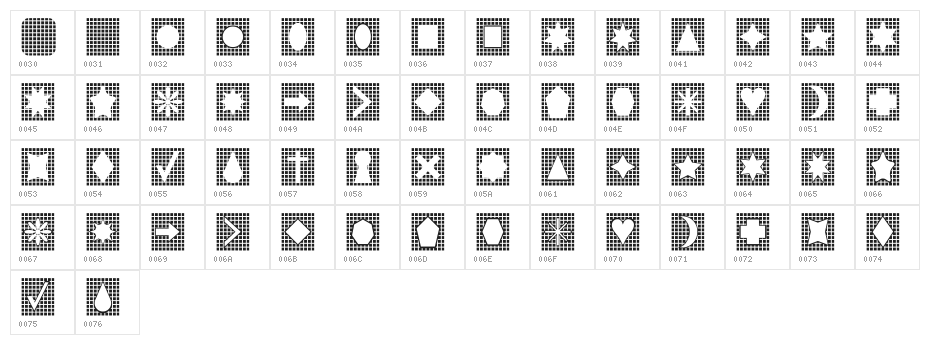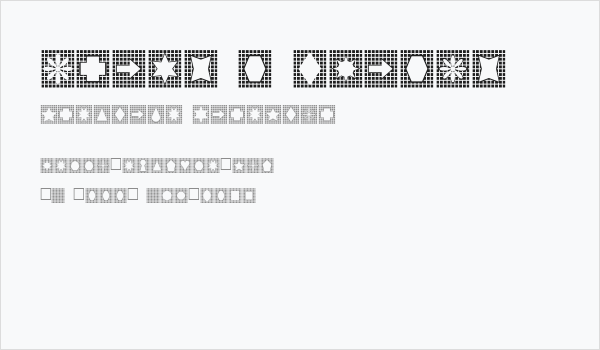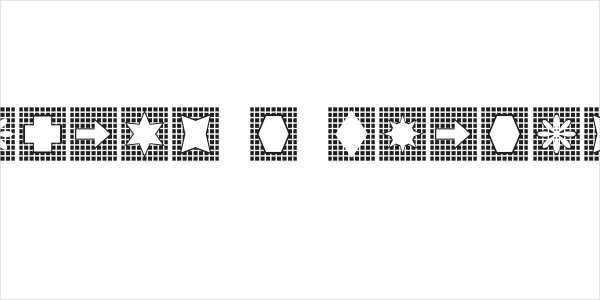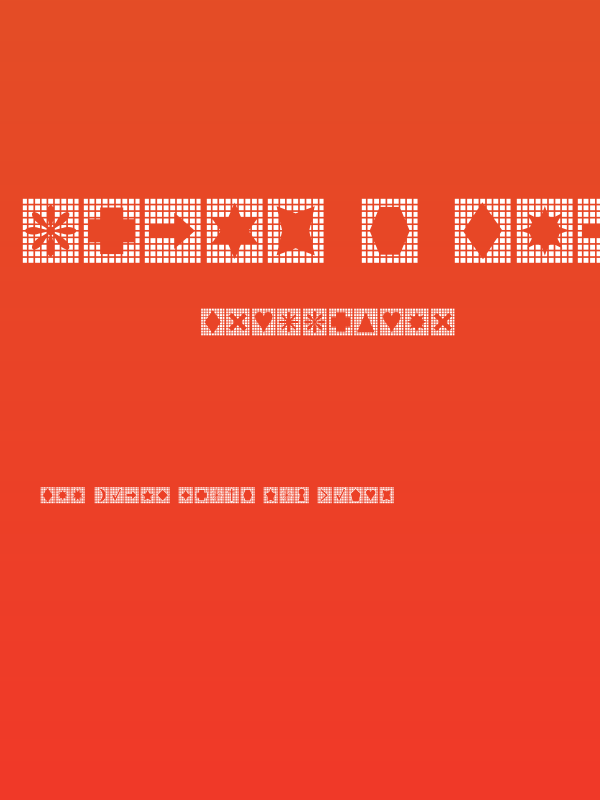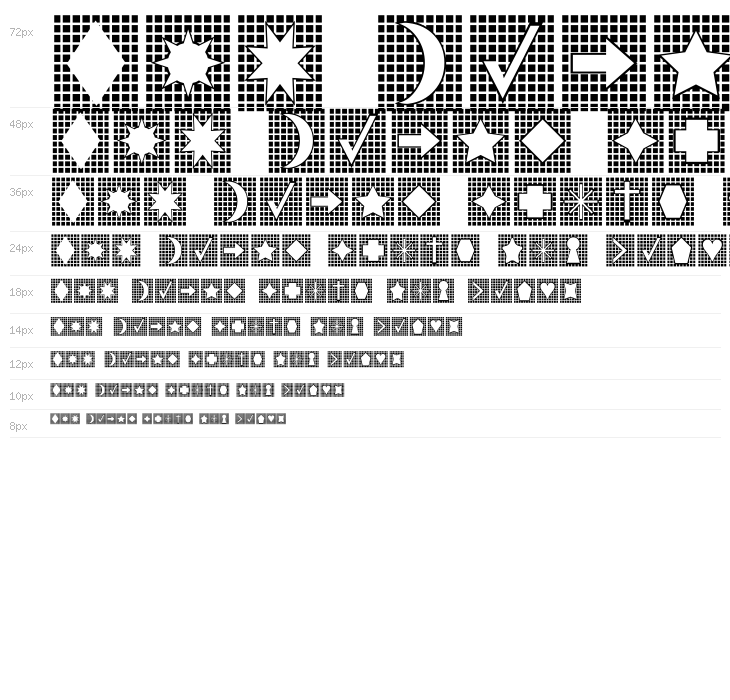
Grids n Things Font
Grids n Things Description
A decorative dingbat font featuring various geometric and symbolic shapes, each enclosed within a uniform grid pattern. The glyphs include stars, arrows, hearts, circles, polygons, and other icons, all rendered in a bold, high-contrast style with consistent spacing and alignment.
| Overall Style | Decorative, Modern |
| Use Case | Icons, Decorative elements, Infographics, Visual accents |
| Proposed Projects | Infographics, educational materials, playful branding, digital stickers, UI icon sets, creative dividers. |